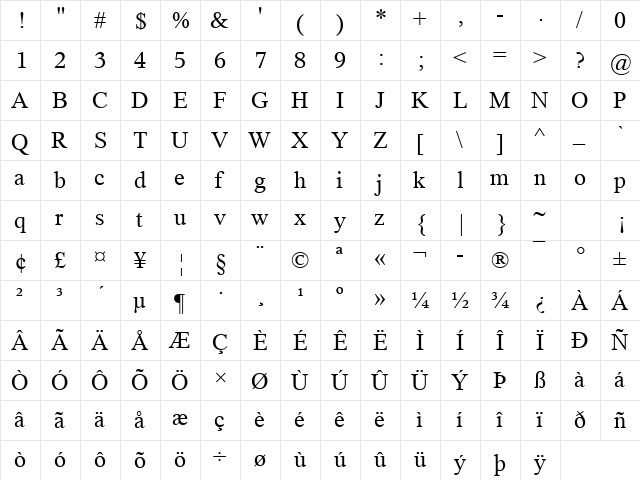
Thorndale Regular
| Foundry | Agfa Monotype Corporation |
| Designer | Agfa Monotype Drawing Office |
Design Context for Thorndale Typeface
Thorndale takes a measured approach to typography — its balanced proportions and neutral character make it a reliable workhorse for both digital and print work.